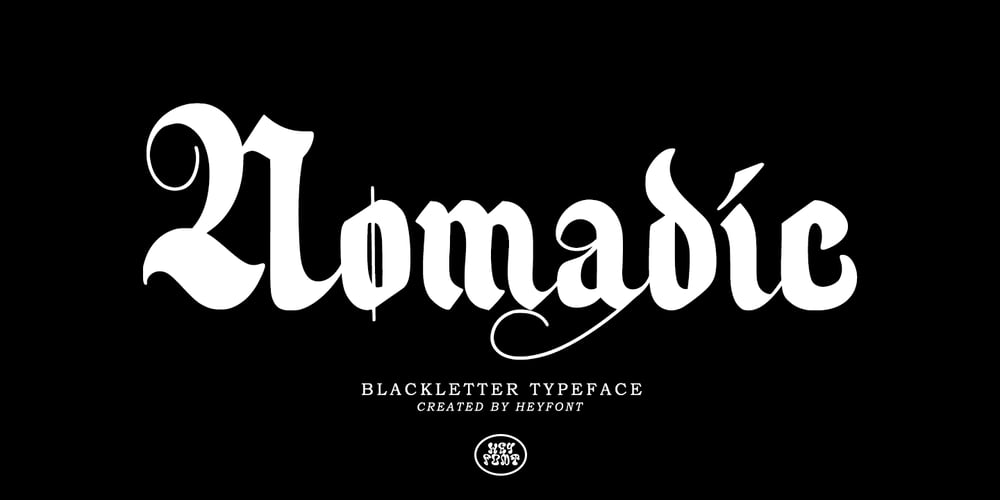
Nomadic Font Family was designed by Asep Rendy and published by Heyfonts. Nomadic contains 1 styles and family package options. Nomadic Blackletter font, also known as Gothic or Old English font, is characterized by its bold, ornate and decorative style with thick vertical and thin horizontal strokes. They are highly ornamental and are distinguished by their black, high-contrasting nature.Features of Nomadic Font: Ornate and Decorative: Nomadic fonts are highly ornamental, artistic and decorative, making them ideal for titles, headlines, logos, and other design applications where a touch of sophistication, elegance, and class is required. Strong and Bold: Due to its bold strokes, Nomadic fonts exude strength and power, making them the perfect choice for logos and branding, especially in fields such as music, fashion and sporting industries. High Contrast: Nomadic font creates a high contrast between the thick and thin strokes, creating a unique visual appeal that is not found in other fonts. Gothic Style: Nomadic font originates from the Gothic period where it was commonly used in manuscripts and inscriptions. This style has persisted through the centuries and is still popular today. Use of Capitals: Nomadic fonts make use of stylized capital letters with exaggerated loops and curves, adding to the uniqueness of the font. In summary, They are excellent for logos and headlines, providing a touch of elegance and sophistication. However, their complexity limits their use in large amounts of text.